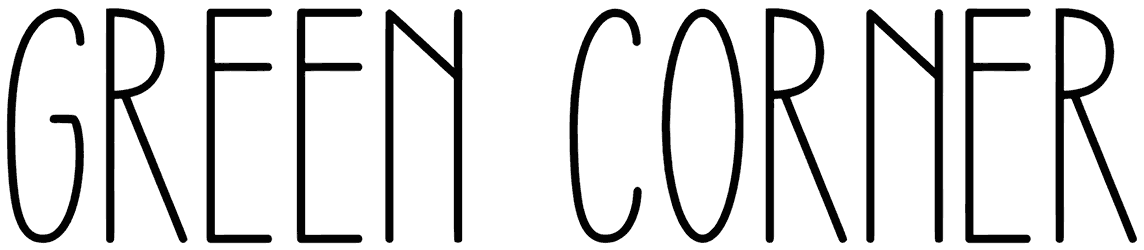
Green Corner Font
Green Corner is a tall sans serif font that adds a considerable amount of quality to your artwork and easily persuades the audience to pursue your graphic content, including illustrations, product packaging, gift cards,…
Green Corner is a tall sans serif font that adds a considerable amount of quality to your artwork and easily persuades the audience to pursue your graphic content, including illustrations, product packaging, gift cards, logos, or social media posts. This all-caps farmhouse font can bring your editorial project to the next level by sharing a sense of softness, delicacy, precision, and modernity.